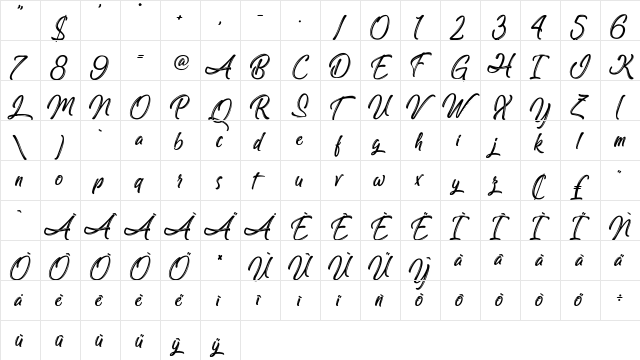
Amazing Kids Regular
| Foundry | Typhoon Type - Suthi Srisopha |
| Designer | Typhoon Type - Suthi Srisopha |
Design Context for Amazing Kids Typeface
Amazing Kids has an approachable, lighthearted character — its loose, expressive forms are well-suited to children's content, casual branding, and fun-first design.
Font Pairing: Pairs well with a rounded or humanist sans for body copy, maintaining the friendly tone without relying on Amazing Kids to carry extended reading.
Pro Tip: Use Amazing Kids at larger display sizes where its expressive character can land. Pair with a clean, simple sans for body copy to maintain readability.